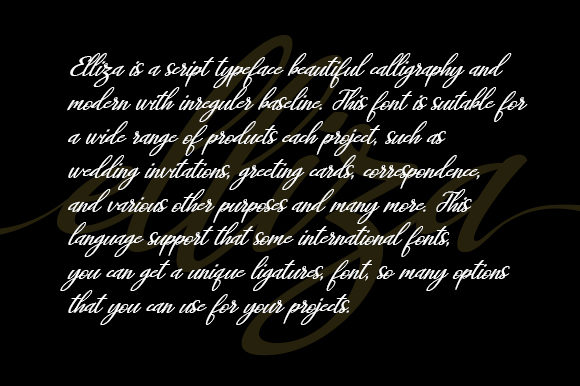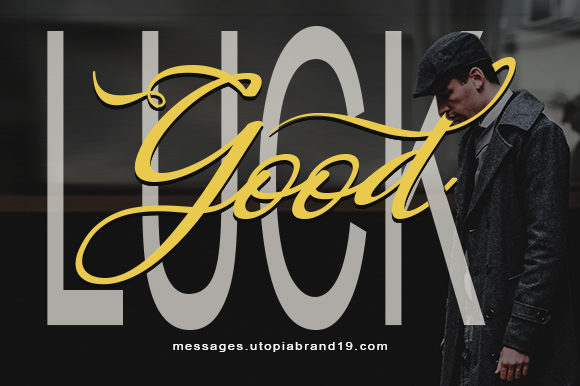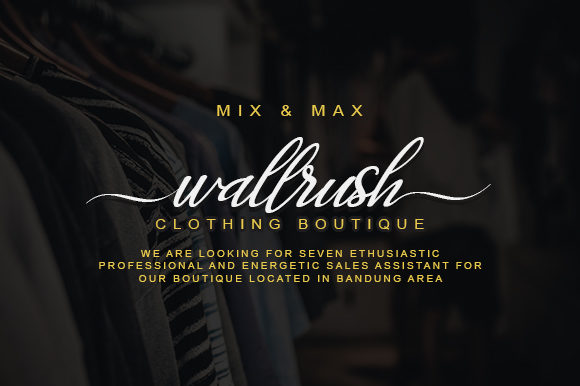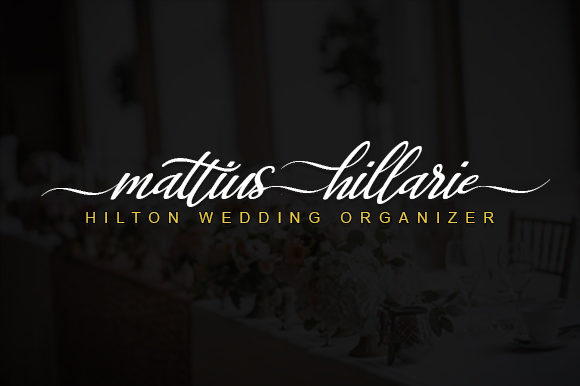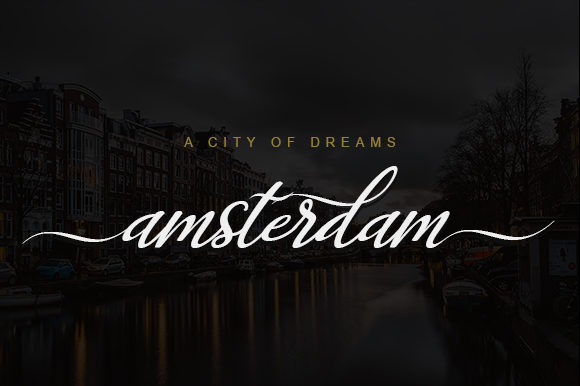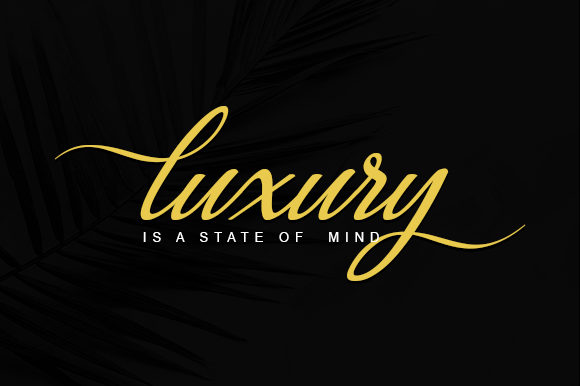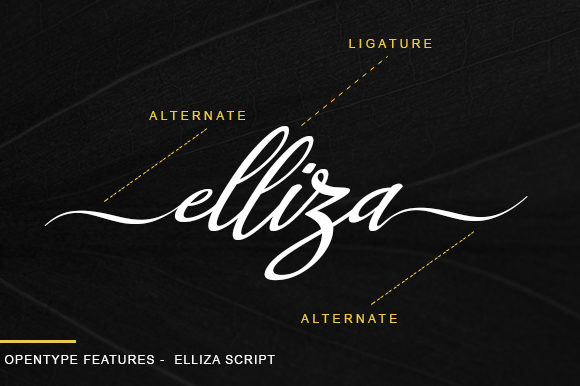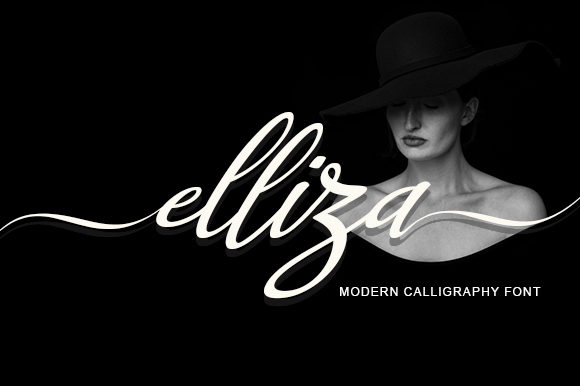
Elliza Script Font
About Elliza Script Font
Elliza is a stunning and handwritten font with a cool twist. Use it to add a charming and elegant feel to any design project.